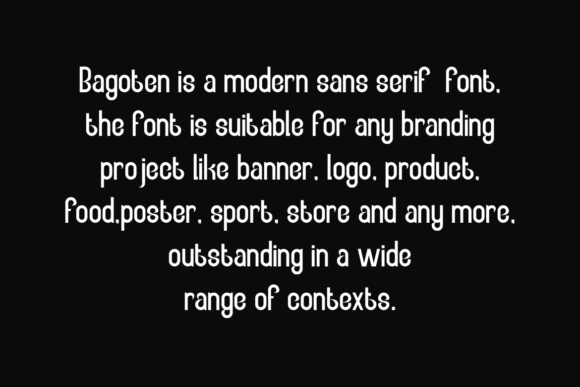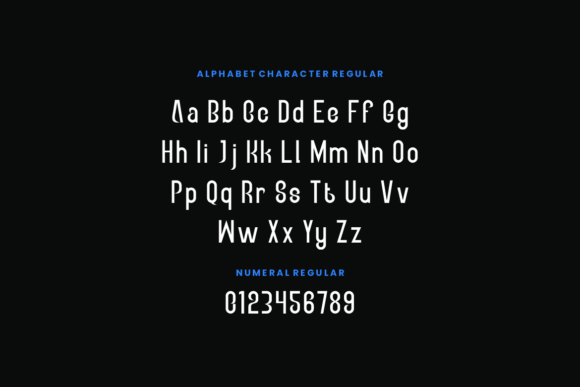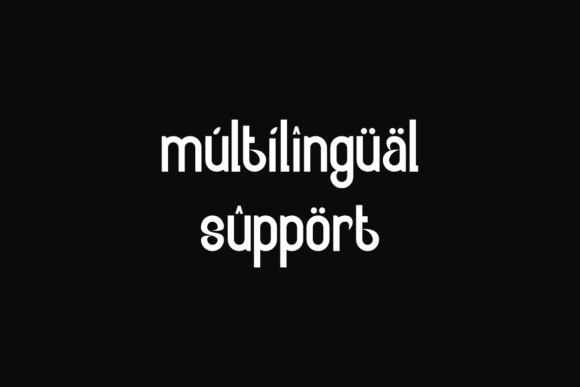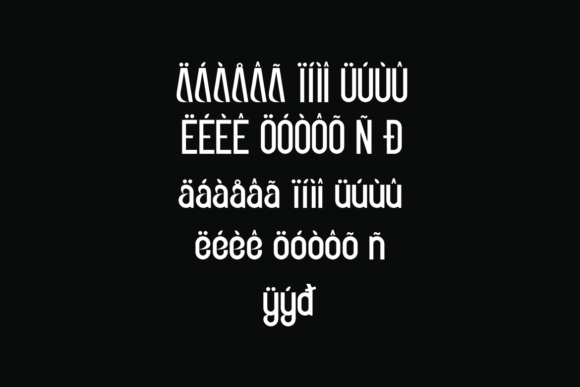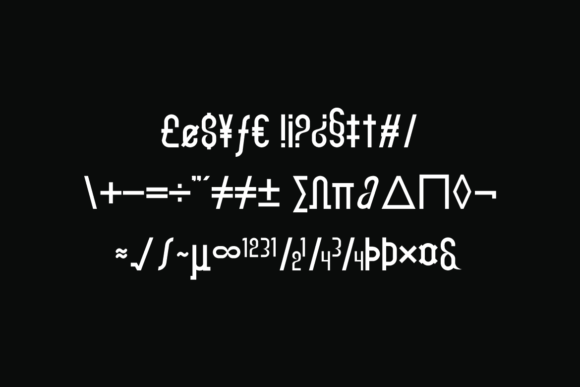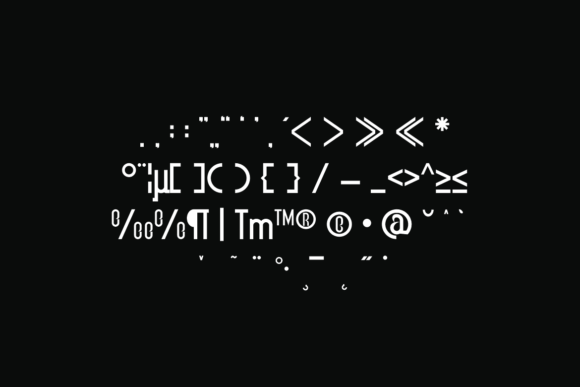
The Perfect Font to Unleash Your Creativity
Remember that moment when you stumbled upon the perfect font, and suddenly your design vision came to life? It’s like finding a missing puzzle piece that makes everything fall into place. For designers, this moment is a treasure, and it’s exactly what the Bagoten Font is designed to bring.
The Bagoten Font is a charming and natural sans serif font that’s perfect for a wide range of designs. Its unique style is not only aesthetically pleasing but also versatile, making it a valuable asset for any designer’s toolkit. With the Bagoten Font, you can create stunning visual identities, beautiful typography, and captivating designs that truly stand out.
Bagoten Font Key Features
- Font Family: Bagoten is a sans-serif font family that includes multiple weights and styles, offering a wide range of design options.
- Unique Characteristics: Bagoten features a clean and modern design with a subtle rounded edge, giving it a friendly and approachable feel.
Bagoten Font Review
Overall, I found Bagoten Font to be an interesting and quirky addition to any design project. It’s ✨ fun to use and can bring a unique touch to headings and titles.
Some of the things that work well with Bagoten Font include:
- Its bold and playful personality, making it perfect for attention-grabbing headlines
- Its versatility, as it can be used for both digital and print projects
- Its wide range of language support, making it a great option for global brands
- ⚠️ The font may not be suitable for body text, as it can be quite difficult to read in smaller sizes
- ⚠️ The font’s quirky nature may not be to everyone’s taste, and some users may find it distracting or unprofessional
Overall, I would recommend Bagoten Font to designers who are looking for a bold and playful font to add some personality to their projects. However, it may not be the best choice for every project, and users should be aware of its limitations before using it.
Tips for Getting the Most Out of Bagoten Font
Use the Bagoten font for creative projects, such as invitations, posters, and social media graphics.
Experiment with different font sizes and styles to create a unique and eye-catching design.
Combine the Bagoten font with other creative elements, such as graphics and images, to add visual interest to your design.
The Bagoten font is ideal for:
Creative projects, such as invitations, posters, and social media